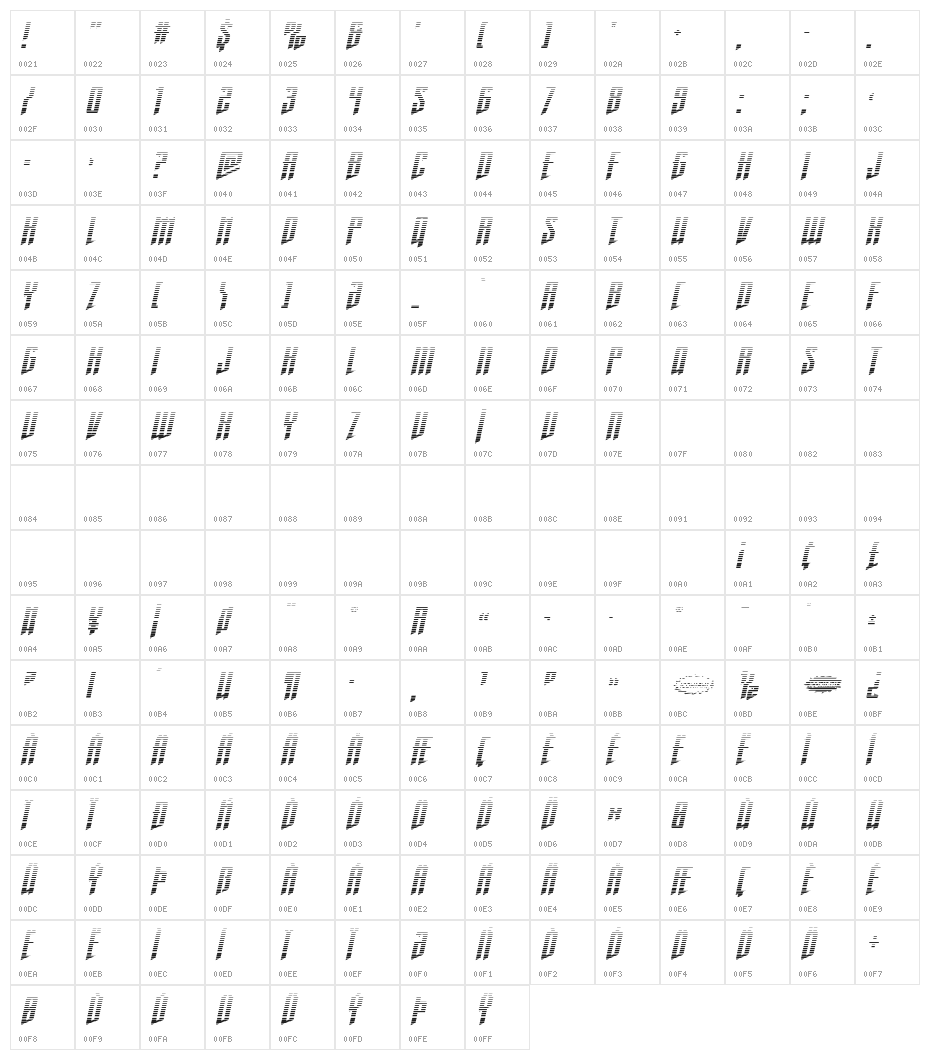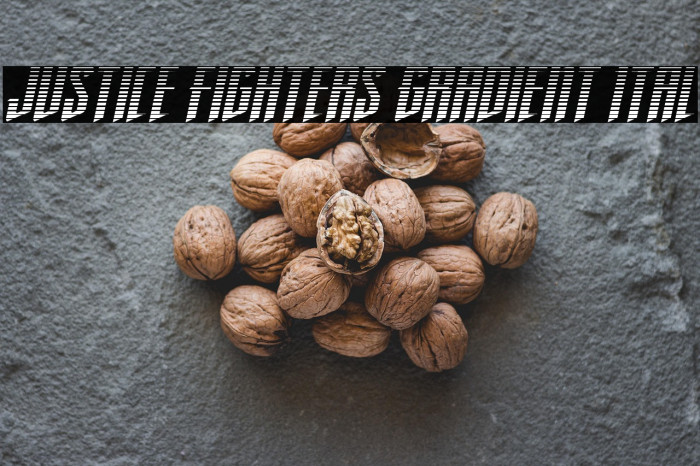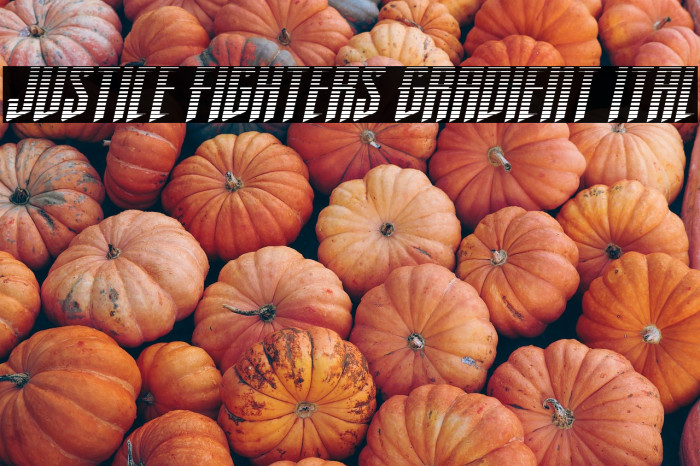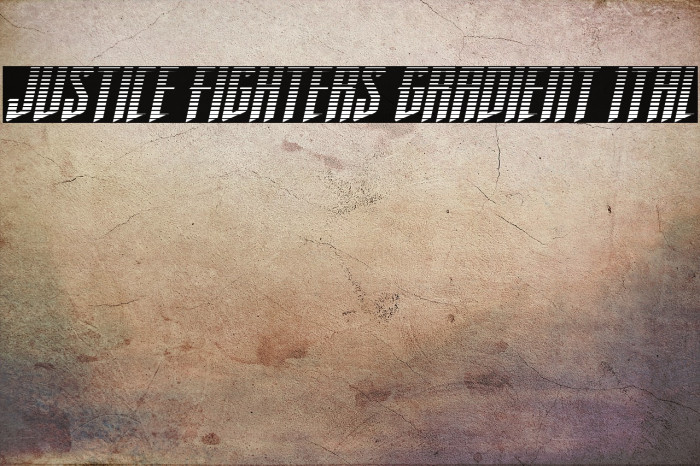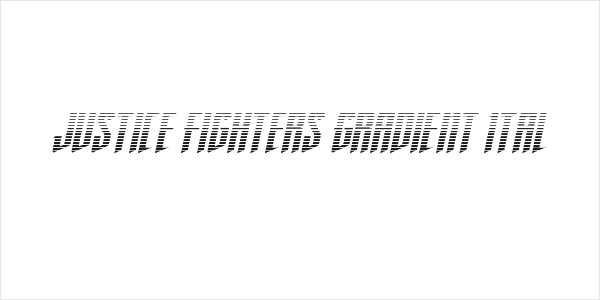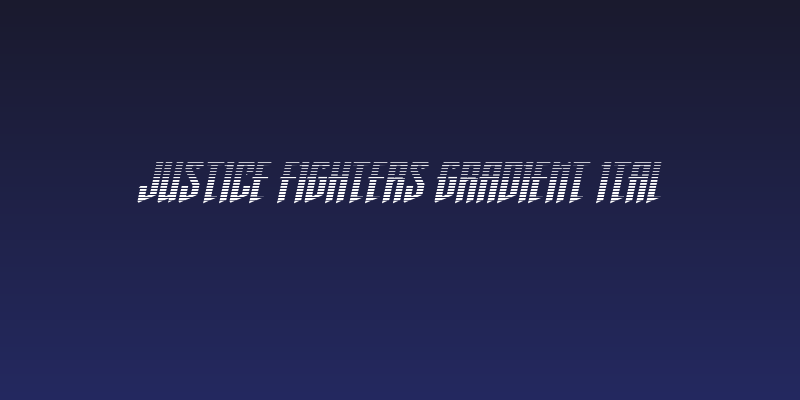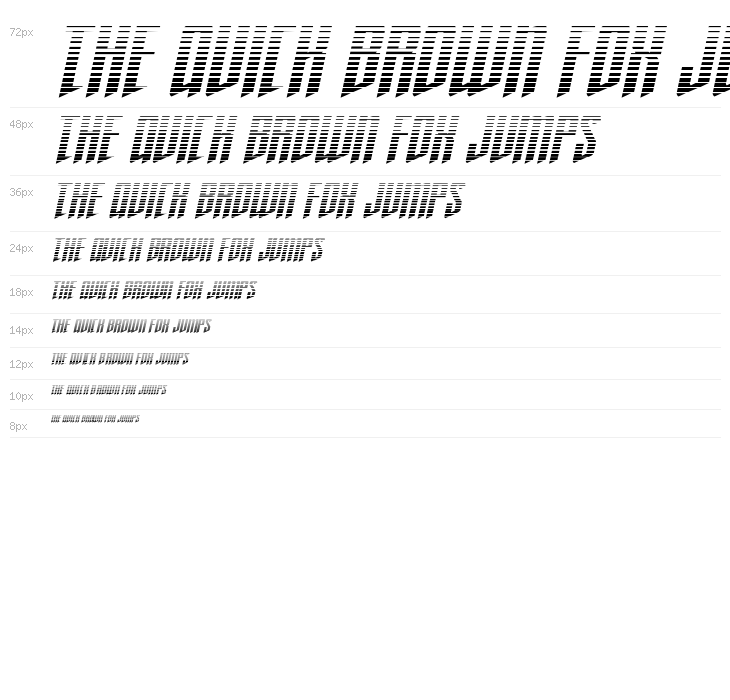
Justice Fighters Gradient Ital Font
Justice Fighters Gradient Ital Description
This font features a bold, dynamic design with a distinct slanted, italicized style. The characters are composed of horizontal stripes, creating a gradient effect that adds depth and movement. The uppercase and lowercase letters maintain a consistent width, while the numbers and special characters follow the same stylistic approach. The overall appearance is modern and futuristic, making it ideal for projects that require a strong visual impact. The spacing between characters is tight, enhancing the compact and cohesive look of the text.
| Proposed Projects | Ideal for sports branding, video game titles, action movie posters, and dynamic logo designs. |